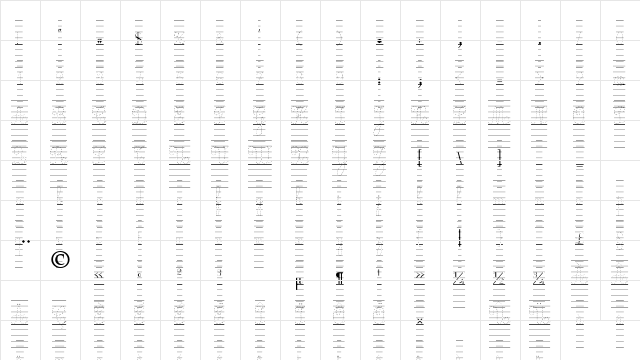
Ecolier_lignes_pointill Regular
Design Context for Ecolier_lignes_pointill Typeface
Ecolier_lignes_pointill takes a measured approach to typography — its balanced proportions and neutral character make it a reliable workhorse for both digital and print work.